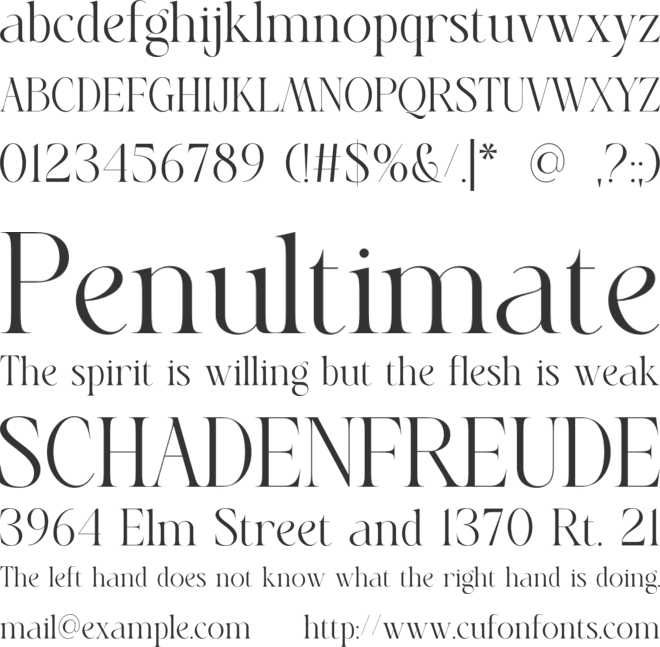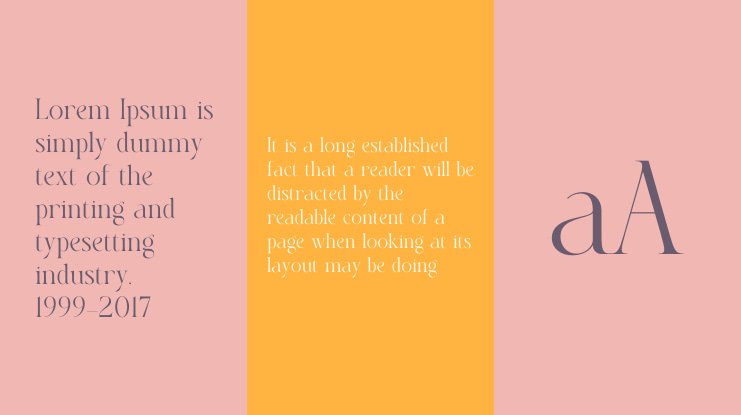
Malling Font
Introducing Malling: An elegant and modern serif display. With its modern and minimalist look, Malling brings a luxurious and clean style to your projects such as websites, modern logos, branding identities, social media quotes, wedding stationery, and more!